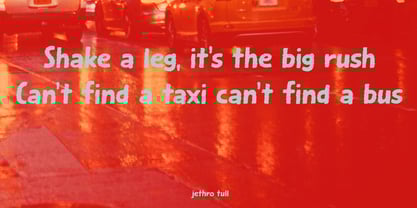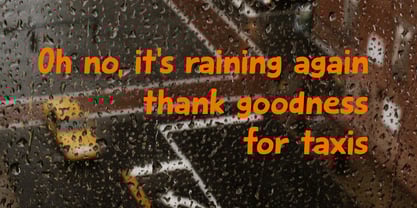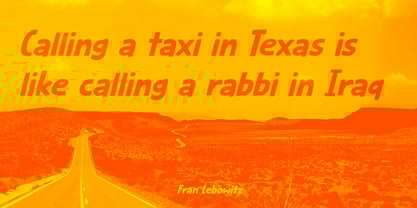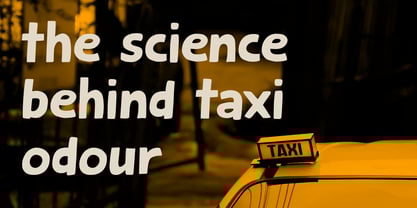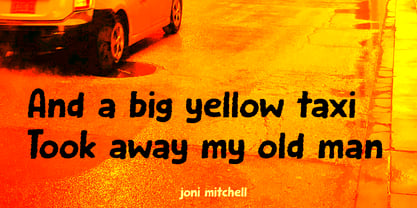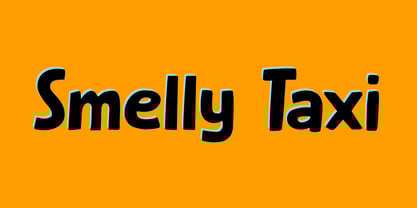
The Smelly Taxi Font Family was designed by David Kerkhoff and published by Kitchen Table Type Foundry. Smelly Taxi contains 4 styles and family package options.
I don’t often use taxis, as I live in a very small village and have a bicycle and a car. When I guide tours abroad, however, I sometimes use taxis and it always surprises me that they seem to have their own distinct ‘taxi smell’. It’s like a mixture of stale beer, cigarette smoke, oil and vinyl.
Smelly Taxi is a handmade font. It comes in a smooth and a rough style.
Smelly Taxi
About Kitchen Table Type Foundry
Kitchen Table Type Foundry is run by me, David Kerkhoff. I also run Hanoded Fonts, which some of you may actually have heard of! :-0KTTF was created as an inspirational boost; a playground for new ideas and possibly font designs that may not fit the Hanoded Fonts brand - but I am not too strict about this rule. Since I design all the fonts, you may come across similarities - but that, unfortunately, is not something I can avoid. After all, it is just me, my laptop computer and the kitchen table I sit at when I design fonts and for which this foundry was named.